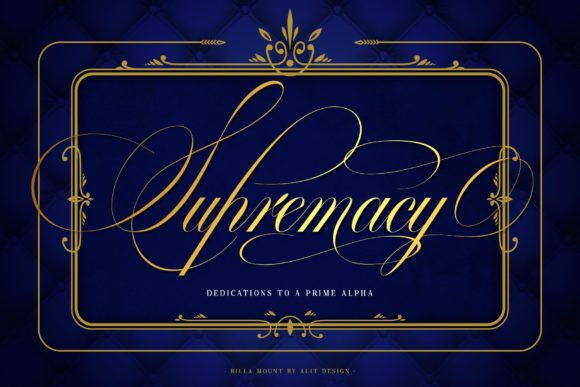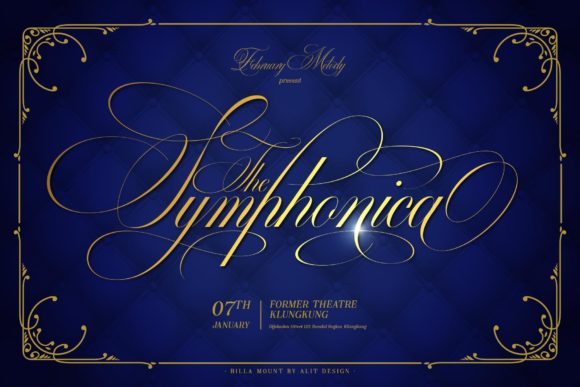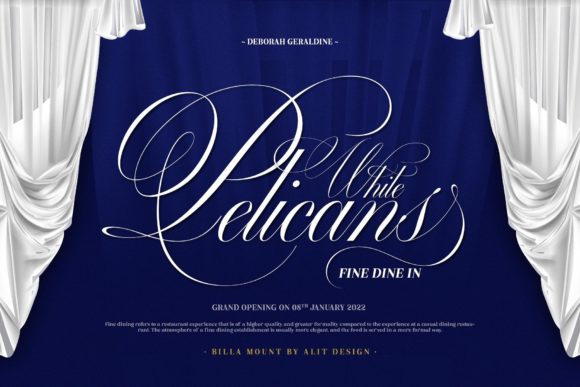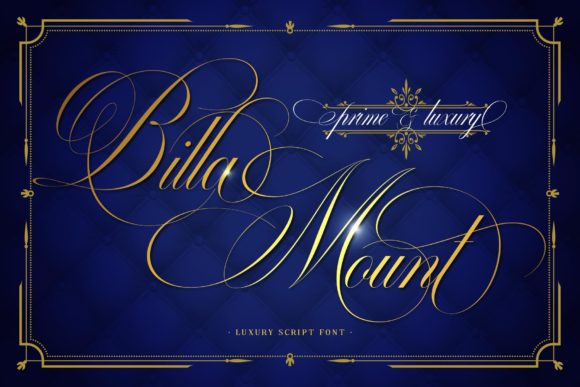
Billa Mount Font: Elegant Script for Wedding Invitations & Logo Design
About the Billa Mount Font
The Billa Mount Font is here to transform your projects with its distinctive character and style. Billa Mount is a luxurious and contemporary script font. Fall for its ravishing style and use it to create gorgeous designs. This font is PUA encoded which means you can access all glyphs and swashes with ease!
Billa Mount Font Usage Examples